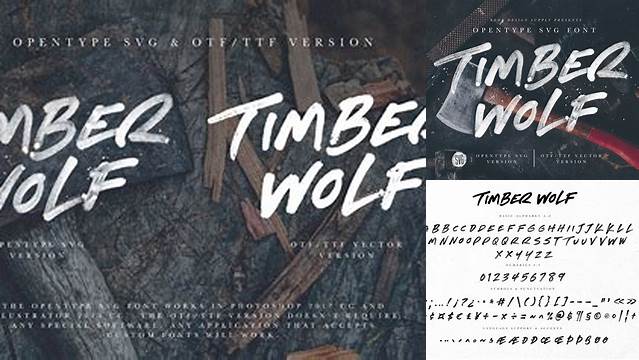
Free Timber Wolf SVG Font: Download Now!
Hey guys! Are you looking for a free Timber Wolf SVG font to spice up your projects? You've come to the right place! In this article, we're diving deep into the world of Timber Wolf fonts, where to find them, how to use them, and everything in between. Let's get started!
1. What is a Timber Wolf SVG Font?
So, what exactly is a Timber Wolf SVG font? Well, SVG stands for Scalable Vector Graphics, which means these fonts are created using vector images. This is super important because it means they can be scaled up or down without losing any quality. Think about it – no more pixelated edges when you want to use a cool font for a big banner! Timber Wolf SVG fonts often have a rustic, wild, or nature-inspired feel, making them perfect for designs that need a touch of the outdoors. They're versatile and can be used for everything from logos to t-shirt designs.
Timber Wolf SVG fonts provide an outstanding solution for designers who require high-quality, scalable typography. Unlike traditional raster fonts, SVG fonts use vector graphics, which allows for infinite scaling without any loss of clarity or detail. This is particularly beneficial when creating designs that need to be displayed across various mediums and sizes, such as websites, print materials, and large-format displays. The sharp lines and intricate details of SVG fonts ensure a professional and polished appearance, regardless of the size at which they are rendered. Moreover, the flexibility of Timber Wolf SVG fonts extends to their customization options. Designers can easily modify the colors, strokes, and fills of the font elements, allowing for a seamless integration with the overall design aesthetic. This level of control ensures that the typography complements the visual elements perfectly, enhancing the overall impact of the design. In addition, Timber Wolf SVG fonts often incorporate unique stylistic features that capture the essence of the timber wolf, such as jagged edges, sharp angles, and textured surfaces. These characteristics make them particularly suitable for projects that aim to convey a sense of wilderness, strength, or adventure. Whether you’re designing a logo for an outdoor brand, creating marketing materials for a nature-themed event, or adding a rustic touch to your personal projects, Timber Wolf SVG fonts offer a versatile and visually compelling solution. Furthermore, the compatibility of Timber Wolf SVG fonts with modern design software and web browsers ensures that they can be used across a wide range of platforms without any compatibility issues. This broad accessibility makes them a practical choice for designers who need to work across different environments and deliver consistent results. In conclusion, the combination of scalability, customization options, stylistic features, and compatibility makes Timber Wolf SVG fonts an excellent choice for anyone looking to add a distinctive and high-quality typographic element to their designs.